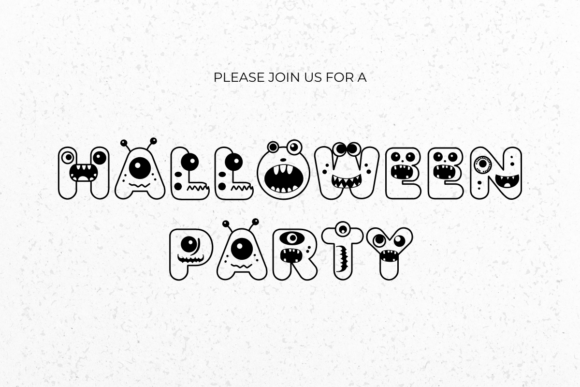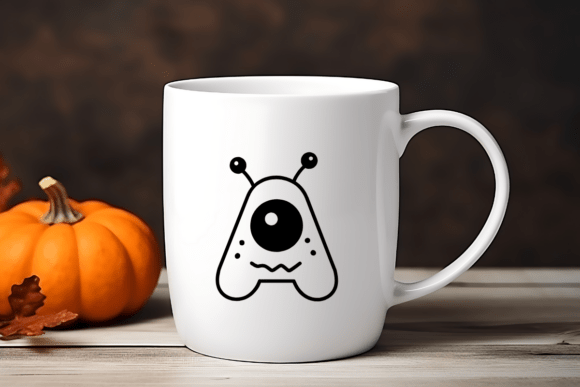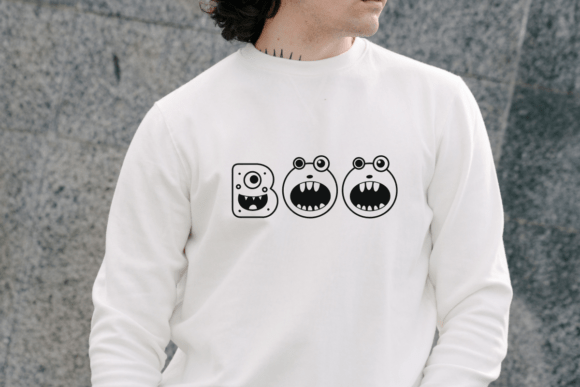
Introduction to Halloween Monster Font
Halloween Monster is a cool and unique decorative font.
Add it to your creative ideas and you will love the results .
Key Features of Halloween Monster Font
Why Choose Halloween Monster Font?
Halloween Monster Font offers exceptional quality and versatility, making it a valuable addition to your design toolkit. Whether you’re creating for personal projects or commercial use, Halloween Monster Font delivers professional results.